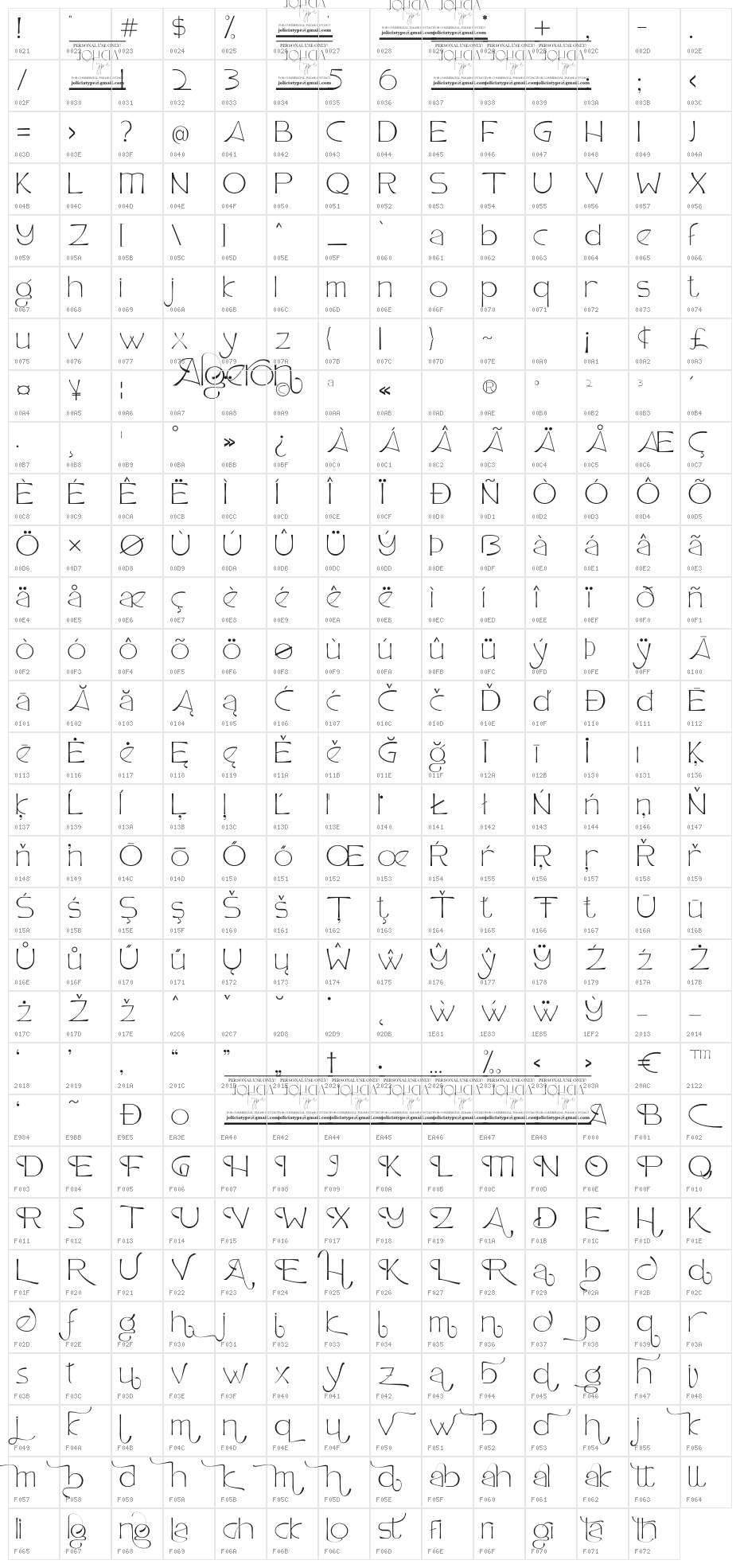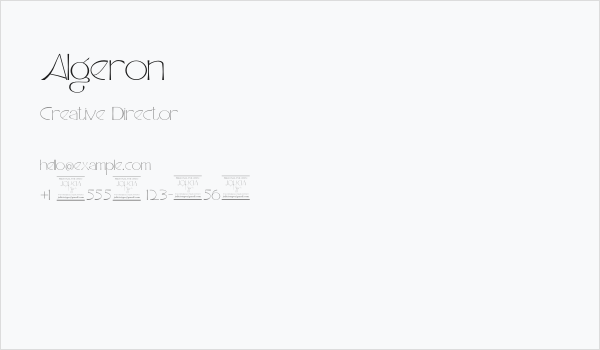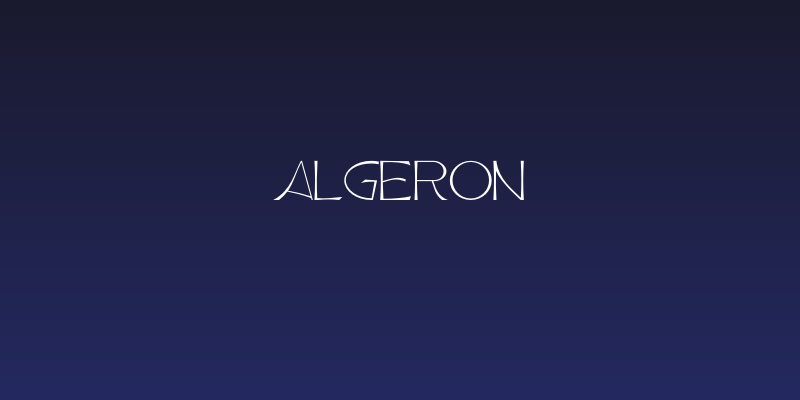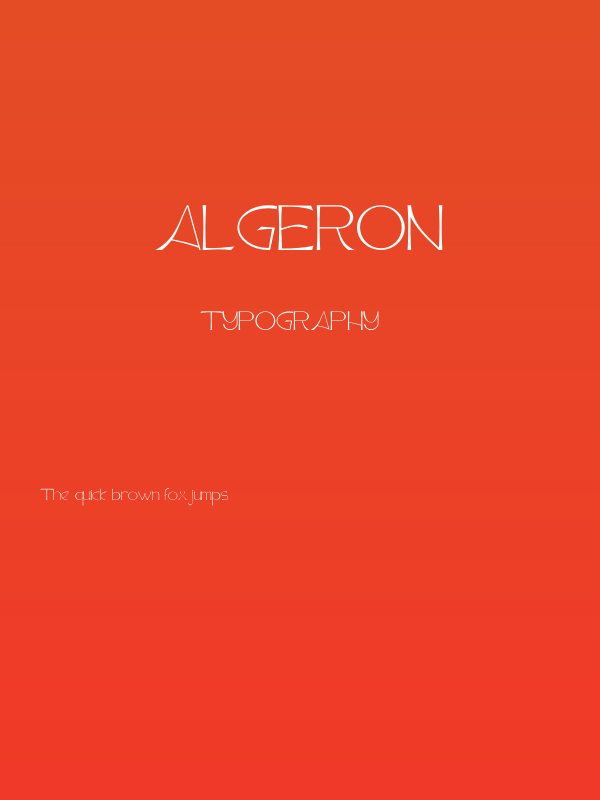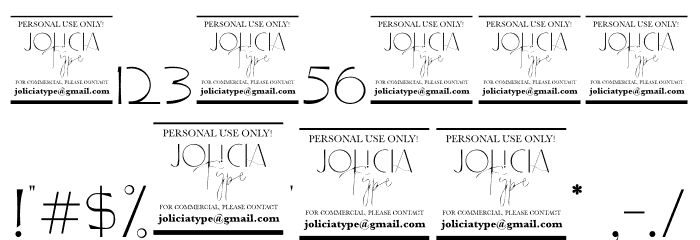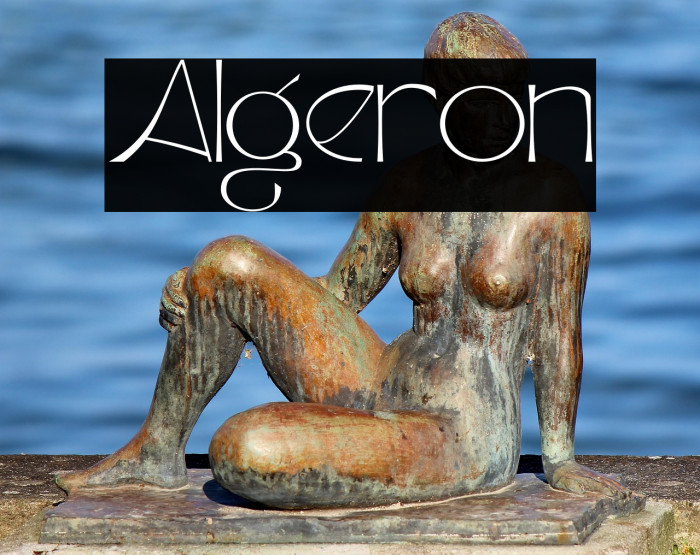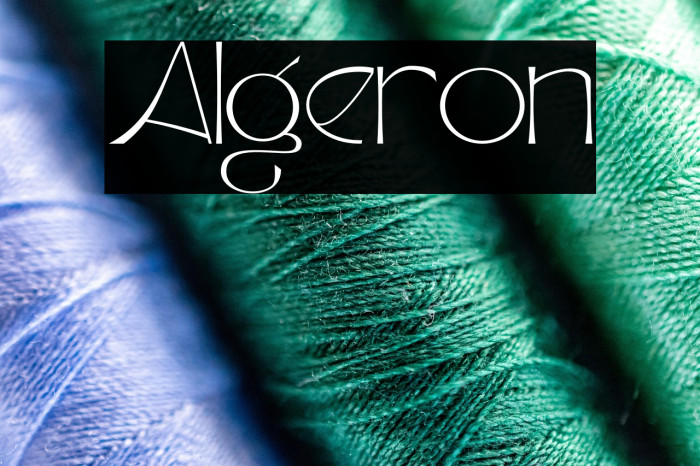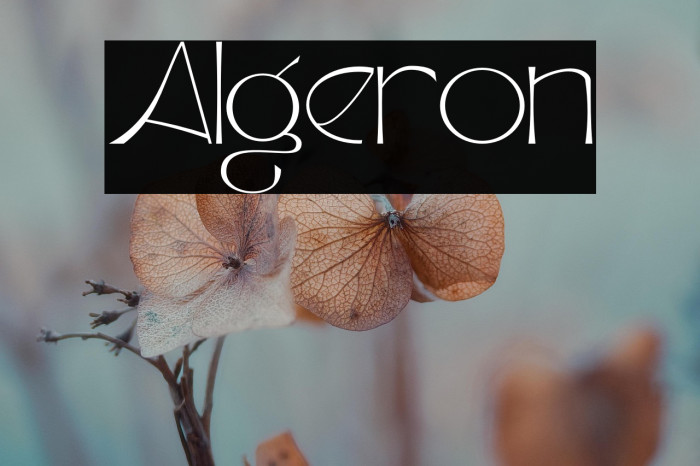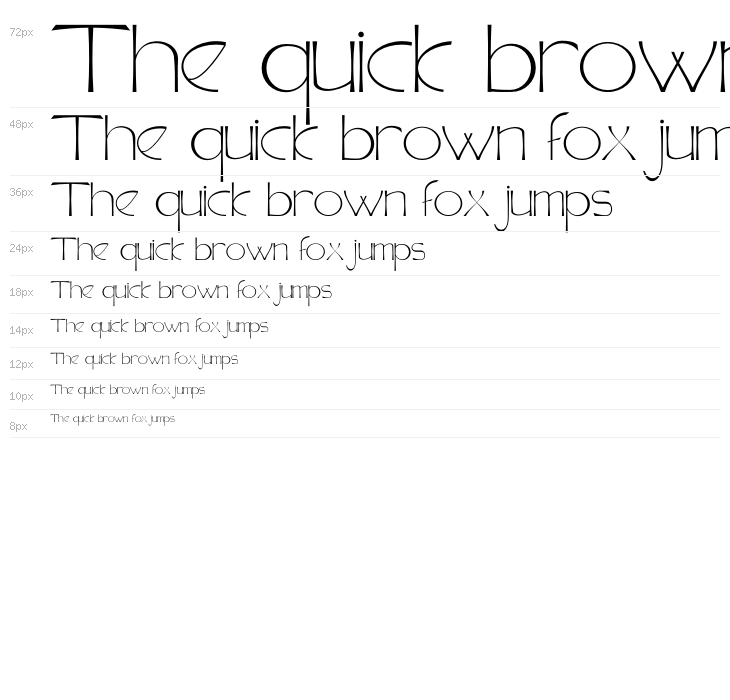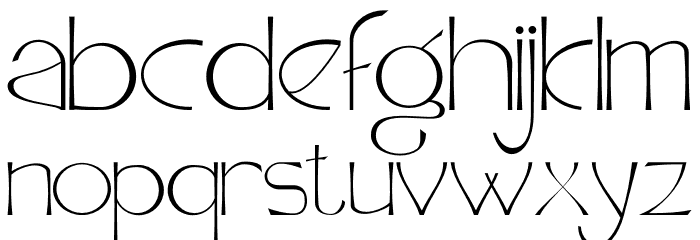
Algeron Font
Algeron Description
This font features a unique blend of elegance and modernity, characterized by its thin, elongated letterforms and subtle curves. The uppercase letters exhibit a distinct angularity, while the lowercase letters maintain a smooth, flowing appearance. The numerals are consistent with the overall style, offering a sleek and sophisticated look. Special characters are designed with a minimalist approach, enhancing the font's refined aesthetic. The overall design is clean and uncluttered, making it suitable for a variety of creative applications.
| Overall Style | Elegant and modern |
| Use Case | Headlines, Logos, Editorial design |
| Proposed Projects | Ideal for branding, editorial design, fashion magazines, and luxury product packaging. |